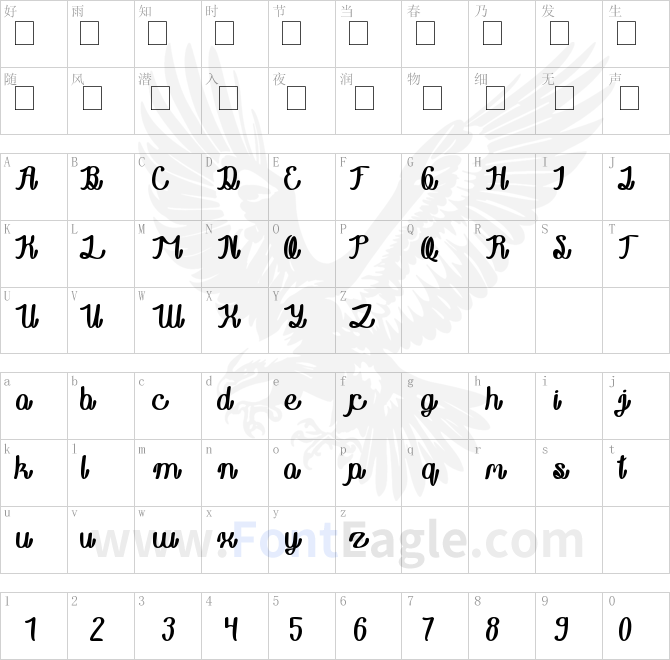
Rainboy-in-love is a great font, widely used in graphic design, single-page menu design, poster design and other fields, and is deeply loved by designers.Rainboy-in-love download.